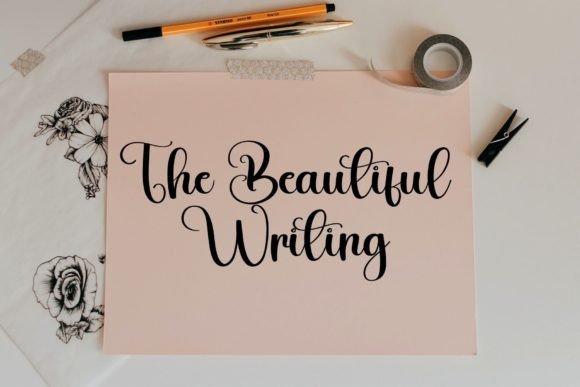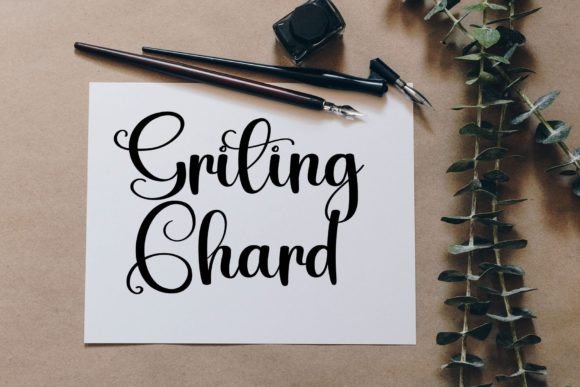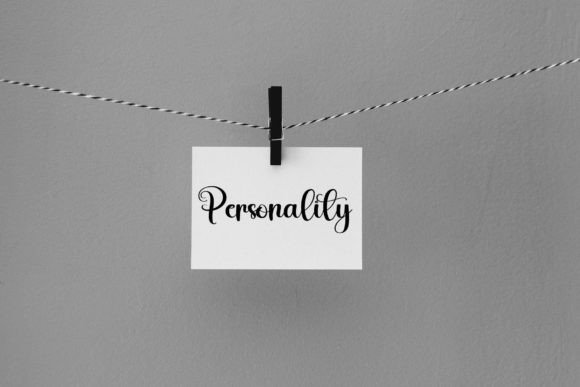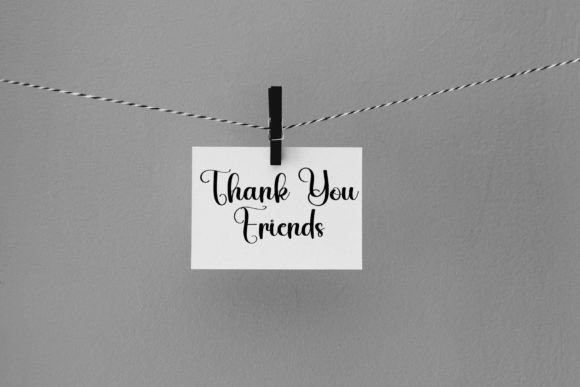
Dutiful Font: Elevate Your Designs with a Sweet and Luxurious Handwritten Style
Are you on the hunt for a font that can add a touch of elegance and sophistication to your design projects? Look no further than Dutiful Font! This beautiful handwritten font is designed to bring a sense of luxury and refinement to any design, making it perfect for crafters, designers, and artists looking to elevate their work.
What Makes Dutiful Font So Special?
Dutiful Font is a sweet and beautiful handwritten font that features characters that dance along the baseline, creating a sense of movement and fluidity. This unique characteristic sets it apart from other fonts and gives it a distinctive, high-end feel that’s sure to impress. Whether you’re working on a branding project, a wedding invitation, or a packaging design, Dutiful Font is the perfect choice for adding a touch of luxury and sophistication.
Key Features of Dutiful Font
- Handwritten style: Dutiful Font is a carefully crafted handwritten font that mimics the look and feel of traditional penmanship.
- Luxurious feel: The font’s elegant and refined design makes it perfect for high-end branding, packaging, and design projects.
- Characters that dance along the baseline: This unique feature gives Dutiful Font its distinctive character and sets it apart from other fonts.
- Easy to read: Despite its elegant design, Dutiful Font is easy to read and understand, making it perfect for body text and headings.
How to Use Dutiful Font in Your Designs
Dutiful Font is incredibly versatile and can be used in a wide range of design projects, including:
- Branding and logos: Use Dutiful Font to create a luxurious and sophisticated brand identity that will help you stand out from the competition.
- Wedding invitations and stationery: Add a touch of elegance and refinement to your wedding invitations, stationery, and other paper goods with Dutiful Font.
- Packaging design: Use Dutiful Font to create eye-catching and luxurious packaging that will help your products stand out on store shelves.
- Digital designs: Dutiful Font is also perfect for digital designs, including social media graphics, website headers, and more.
Tips for Getting the Most Out of Dutiful Font
To get the most out of Dutiful Font, here are a few tips to keep in mind:
- Use it sparingly: While Dutiful Font is beautiful, it can be overwhelming if used too much. Use it sparingly to add a touch of elegance and sophistication to your designs.
- Experiment with different colors: Dutiful Font looks great in a variety of colors, so don’t be afraid to experiment and find the perfect hue for your design.
- Pair it with other fonts: Dutiful Font pairs well with a variety of other fonts, so try pairing it with a bold sans-serif font for a striking contrast.